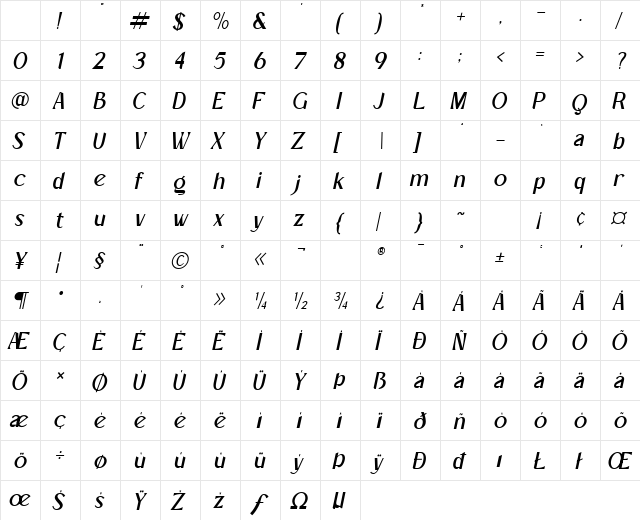
Complete Mangata Ita Italic glyph index. Displaying only characters natively supported by Mangata Ita Italic font.
Mangata Ita is a composed and adaptable typeface that performs quietly and consistently across a wide range of design contexts. The slanted form adds forward momentum and visual energy.